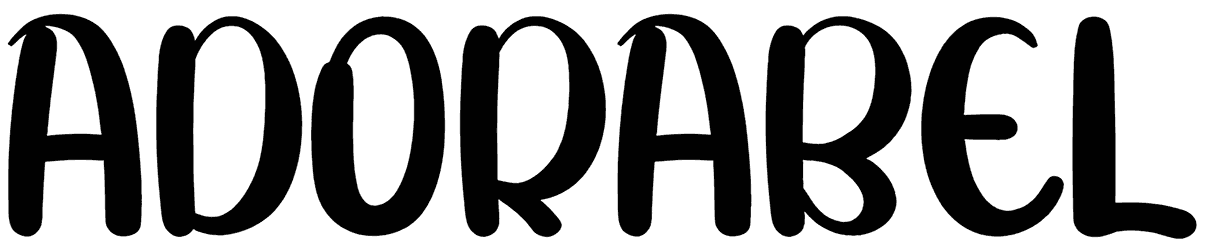
Adorabel Font
Adorabel font gives off a stylish and playful vibe to your text and gives you the option of boldening your letters uniquely. This script font contains a set of capital-only alphabets that start in a thicker marker point (to give the handwritten illusion) and end the letter in a thinner style.
A unique playful font like this, with an approachable look and a modern style, can look its best on invitation cards, party banners, and summer sale posters.